It’s time for some new free handwriting fonts!! :) I’ve got 10 brand new free handwriting fonts for you today over on the Fonts for Peas section of Kevin and Amanda. Did you know there are over 500 FREE and unique handwriting fonts available at Fonts for Peas? The Fonts for Peas are all fonts made from YOUR submitted handwriting samples. I turn your amazingly cute handwriting into fonts and then share them on my blog so we can all enjoy. :) I love handwriting and I’m ADDICTED to fonts! :)
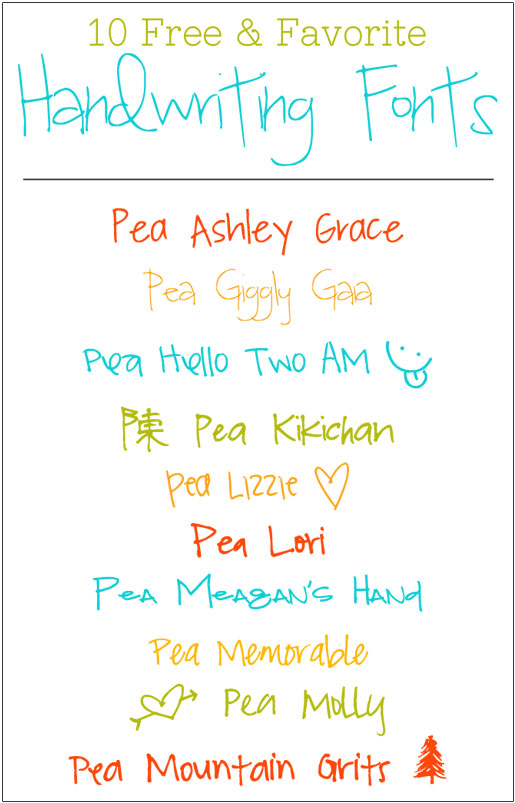
I think you can get a better feel of how a font looks when you see it in a paragraph, as opposed to just the name or a single sentence. So to make things fun, and because Groundhog Day is coming up, and because I love the movie Groundhog Day, almost as much as I love fonts, and because we have to watch it every year, on Groundhog Day, and because this year this Super Bowl is on Groundhog Day…
Today I thought I’d share 10 Things You Probably Didn’t Know About The Movie Groundhog Day. Each fun fact is represented by one of the new fonts. That way you get to read fun facts about the movie Groundhog Day and you get to see cute fonts! :)
Let’s take a look at the new fonts — and facts! — below.
10 Things You Probably Didn’t Know About The Movie
Groundhog Day
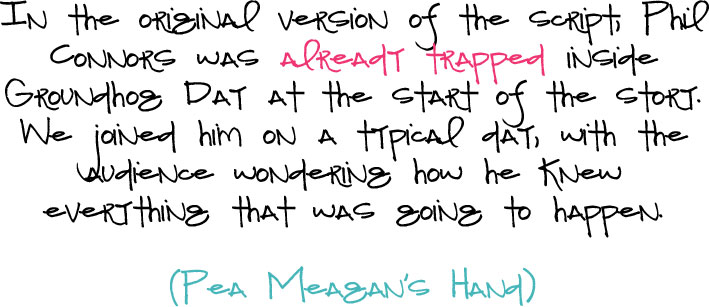
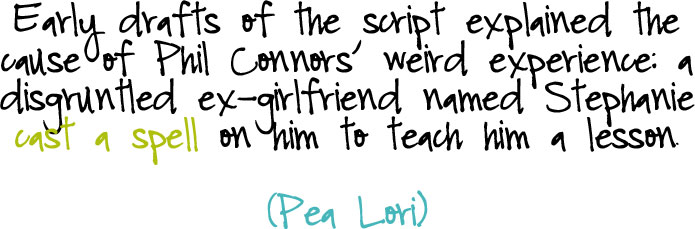
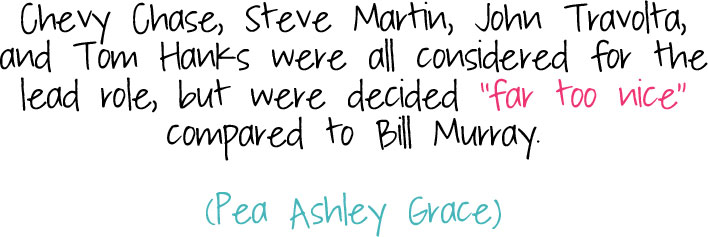
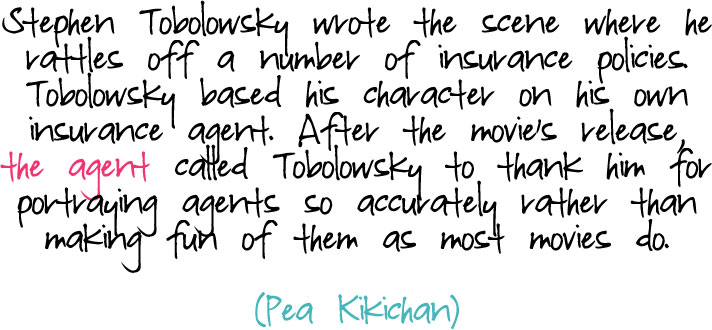
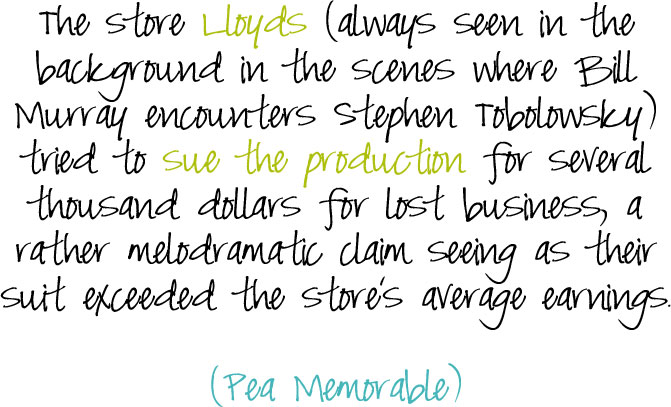
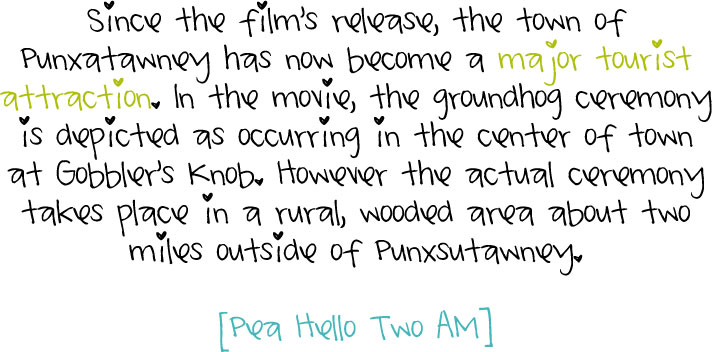
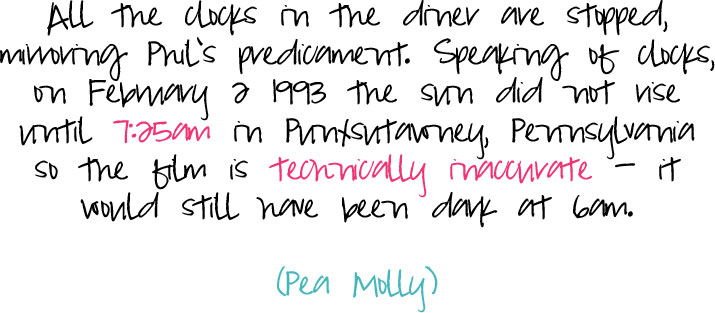
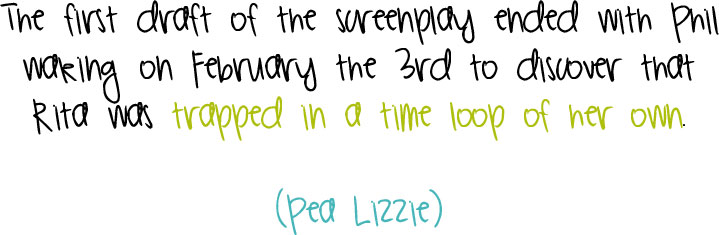
I’m in love with every single one of these fonts!! Especially the one with the little hearts! :) Love these fun facts too!
So obsessed with all of your fonts! I just love them. Also really enjoyed the facts! Such a good movie. :)
Great Fonts!! I really like the Pea Ashley Grace one!!! Thanks Amanda x
Yay thank you! I think Pea Ashley Grace is like a handwriting twin to me only I think hers is nicer!! I’m gonna download some of these :) Thank you Amanda!